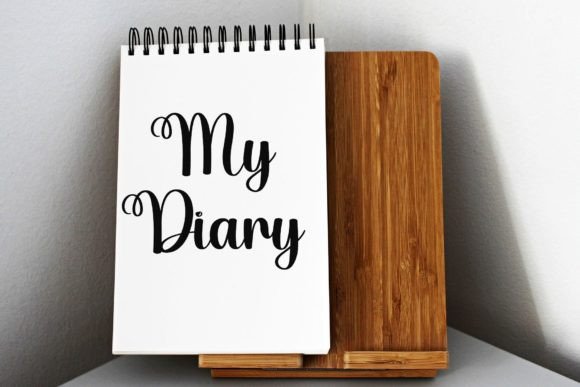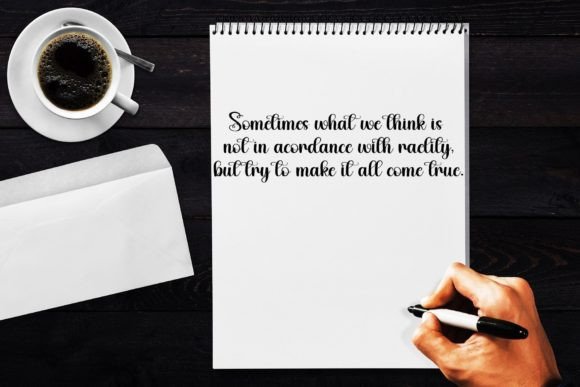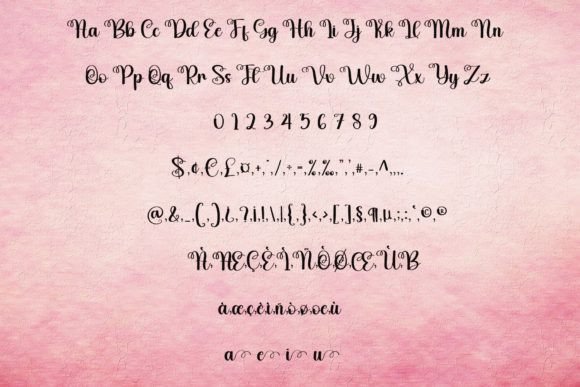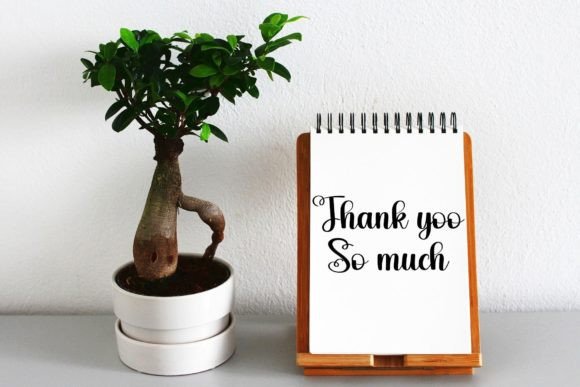
Despite Font
About Despite Font
“Despite” is more than just a font; it’s a sweet, whimsical, flowing, and thin script typeface that brings a touch of luxury to your design projects. With characters that gracefully dance along the baseline, “Despite” infuses a unique charm into your designs, adding a luxurious spark to any project you wish to create.
The sweet and whimsical qualities of “Despite” make it a versatile font for a range of design applications. Whether you’re working on invitations, branding materials, or any other creative endeavor, this font adds a luxurious and enchanting element to elevate the overall aesthetics.
Imagine “Despite” gracing your designs, creating a visual experience that is both flowing and whimsical. The thin script style enhances the elegance of your projects, making them stand out with a touch of sophistication.
For branding purposes, “Despite” becomes a key element in establishing a luxurious and distinctive visual identity. Its dancing characters along the baseline contribute to a unique and memorable brand representation.
In invitations and other elegant designs, “Despite” serves as a font that adds a touch of whimsy and luxury. The graceful dance of characters creates a playful yet sophisticated atmosphere, making it suitable for various special occasions.
In essence, “Despite” is more than just a font; it’s a design asset that brings a sweet and luxurious touch to your projects. Let “Despite” be the typeface that adds a spark of whimsy and sophistication, making your creations truly enchanting and delightful.